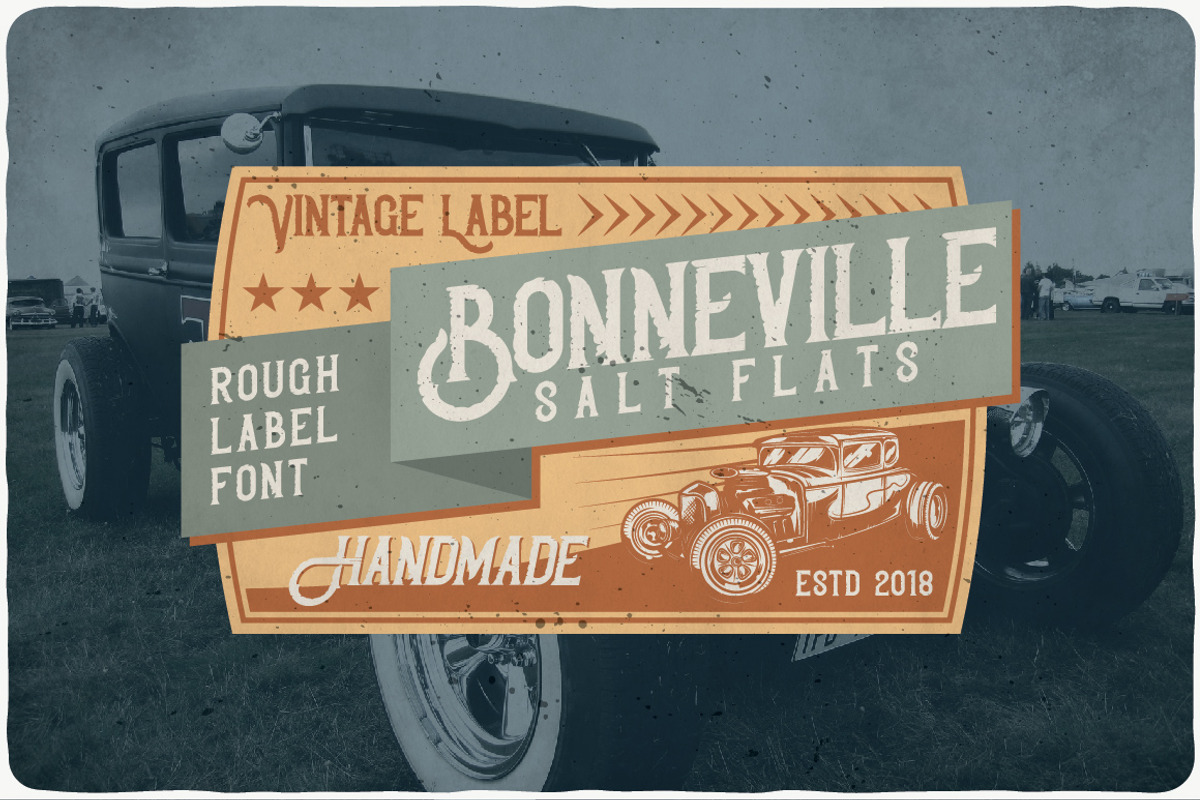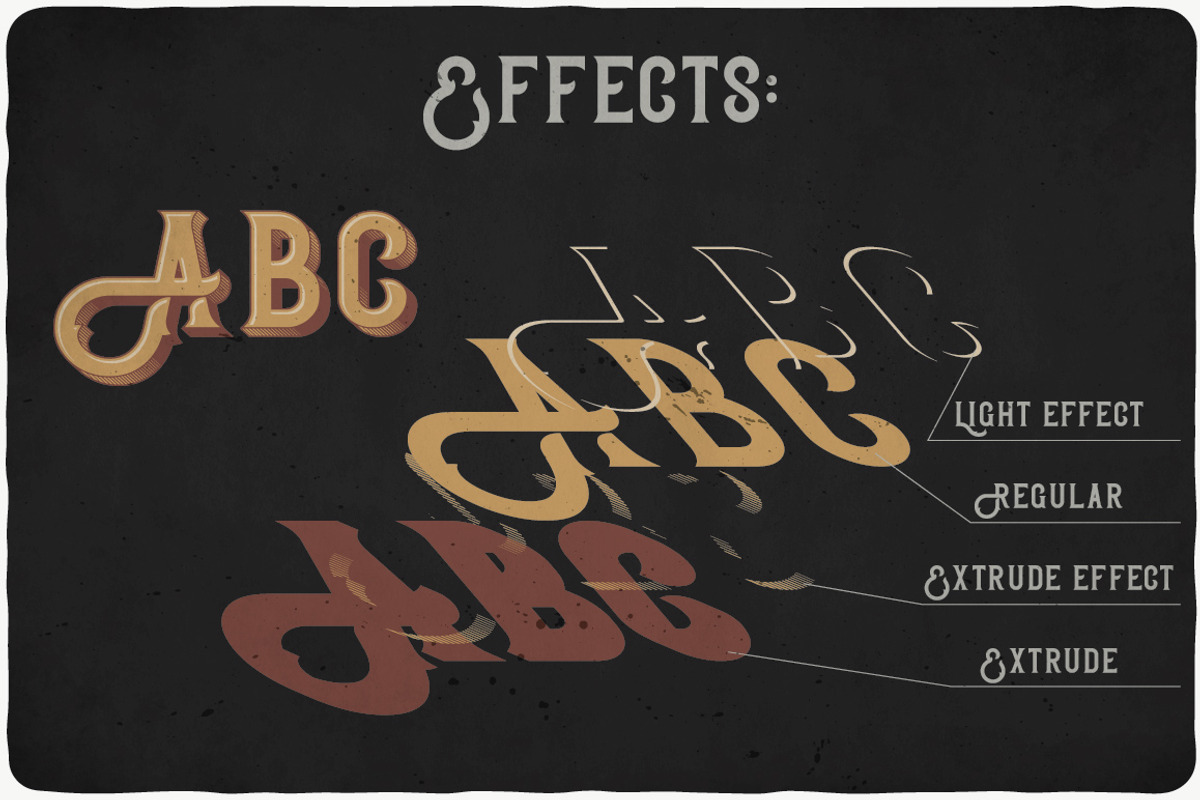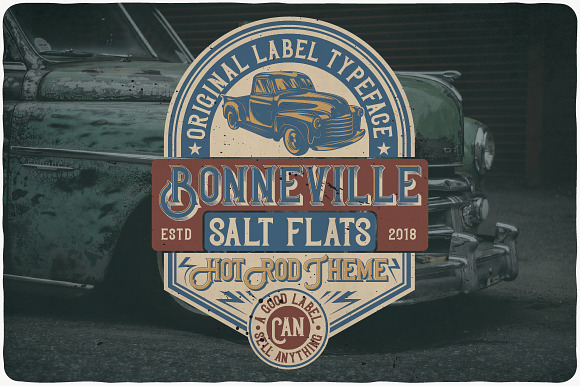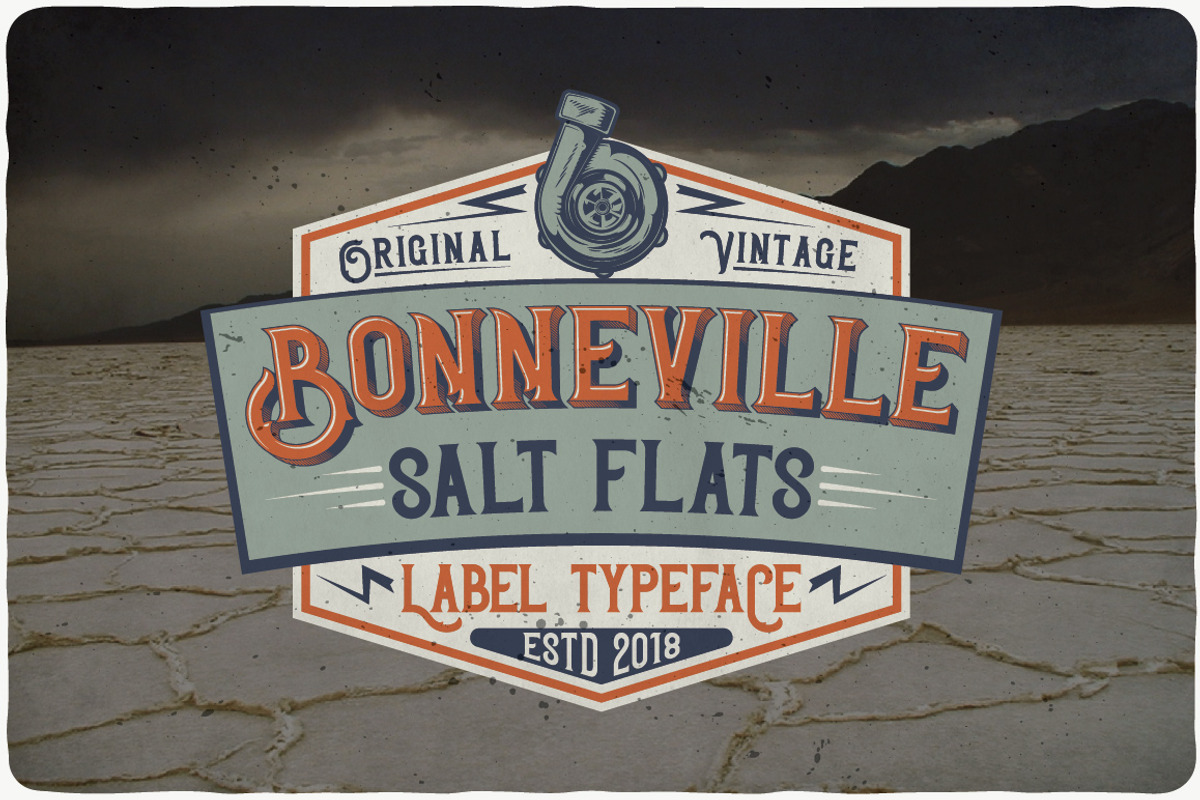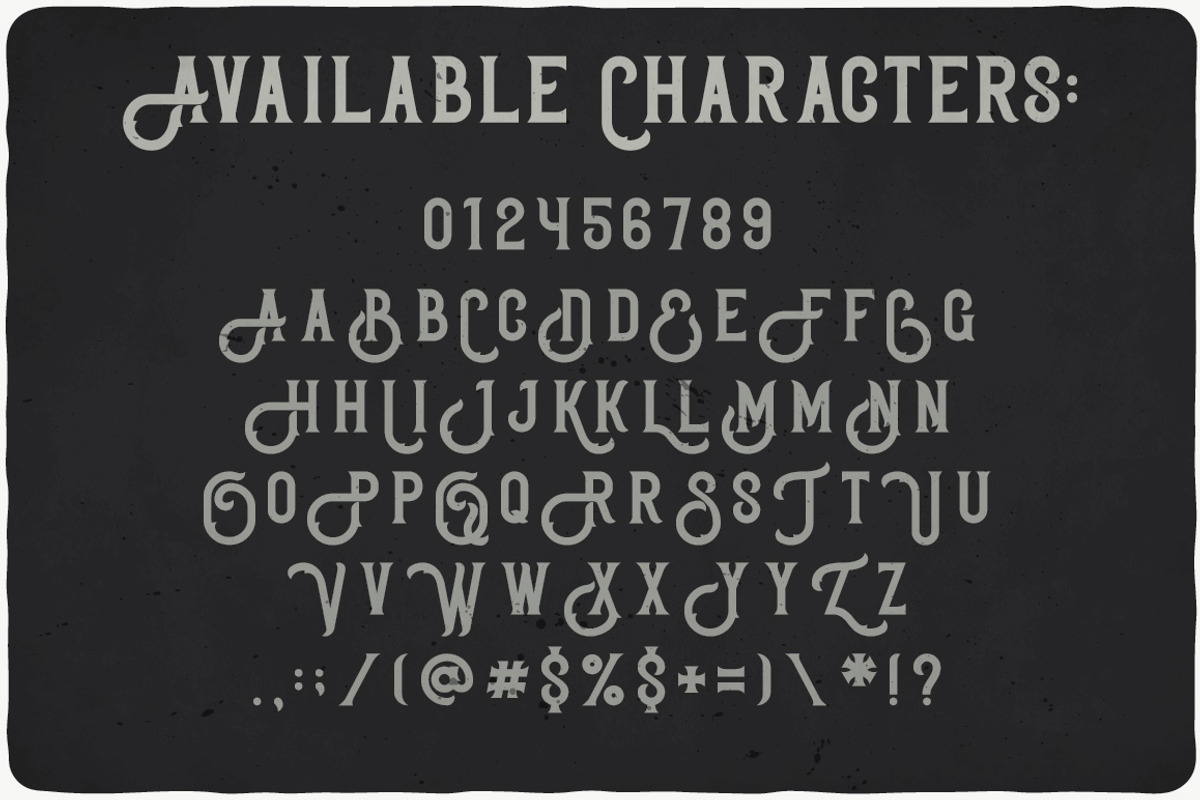
Bonneville Typeface
Introducing a vintage look layered label typeface named "Bonneville". This typeface includes several effect layers, for sample look at 4th preview. Typeface will good viewed on any yours design.
- This typeface includes several effect layers, for sample look at 4th preview.
- Bonneville Light Effect
- Bonneville Regular
- Bonneville Extrude
- Bonneville Extrude Effect
- Bonneville Full Effect
- Bonneville Rough
Bonneville Typeface by VozzyStock fits naturally into Branding, posters, packaging, typography.